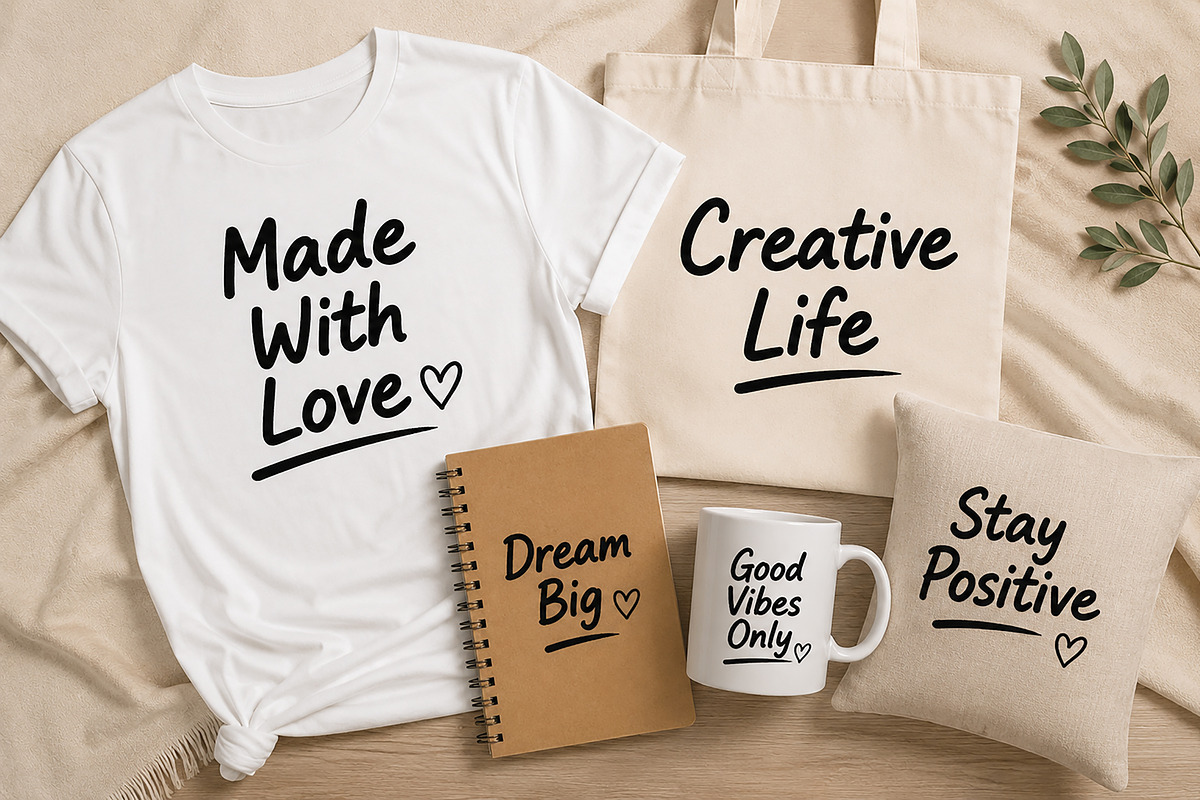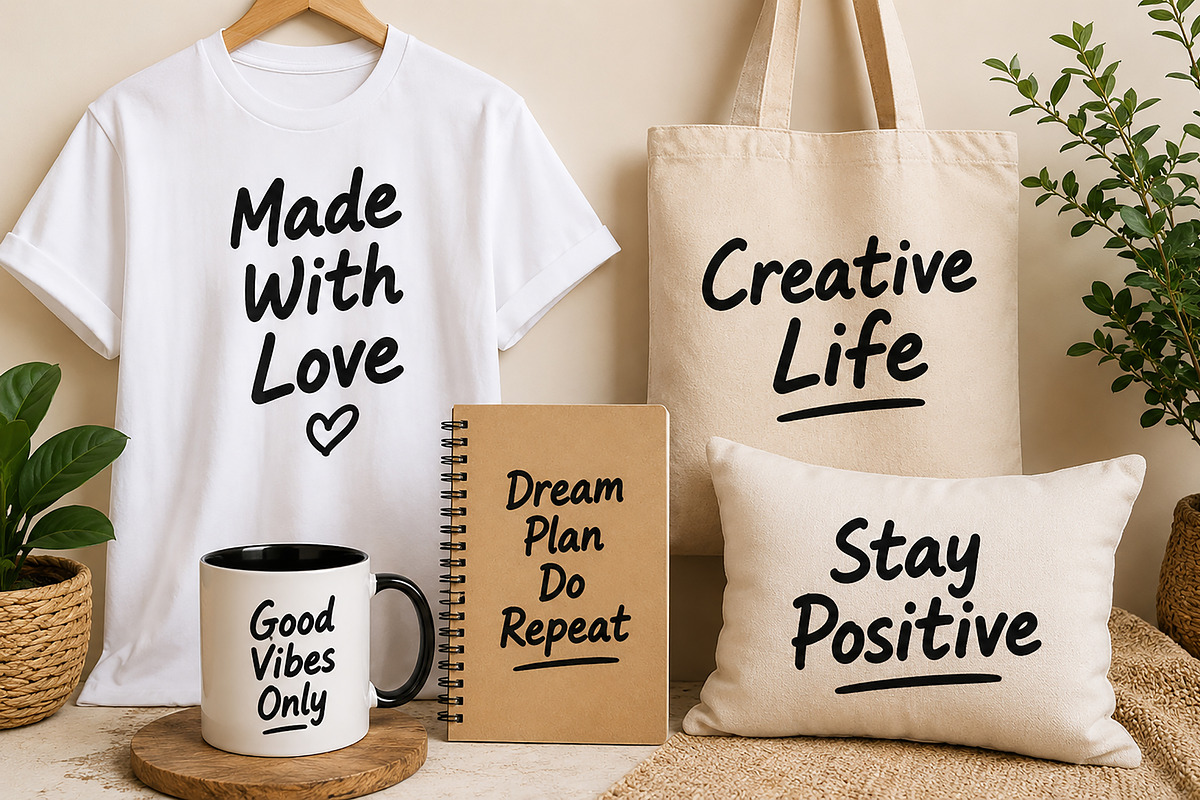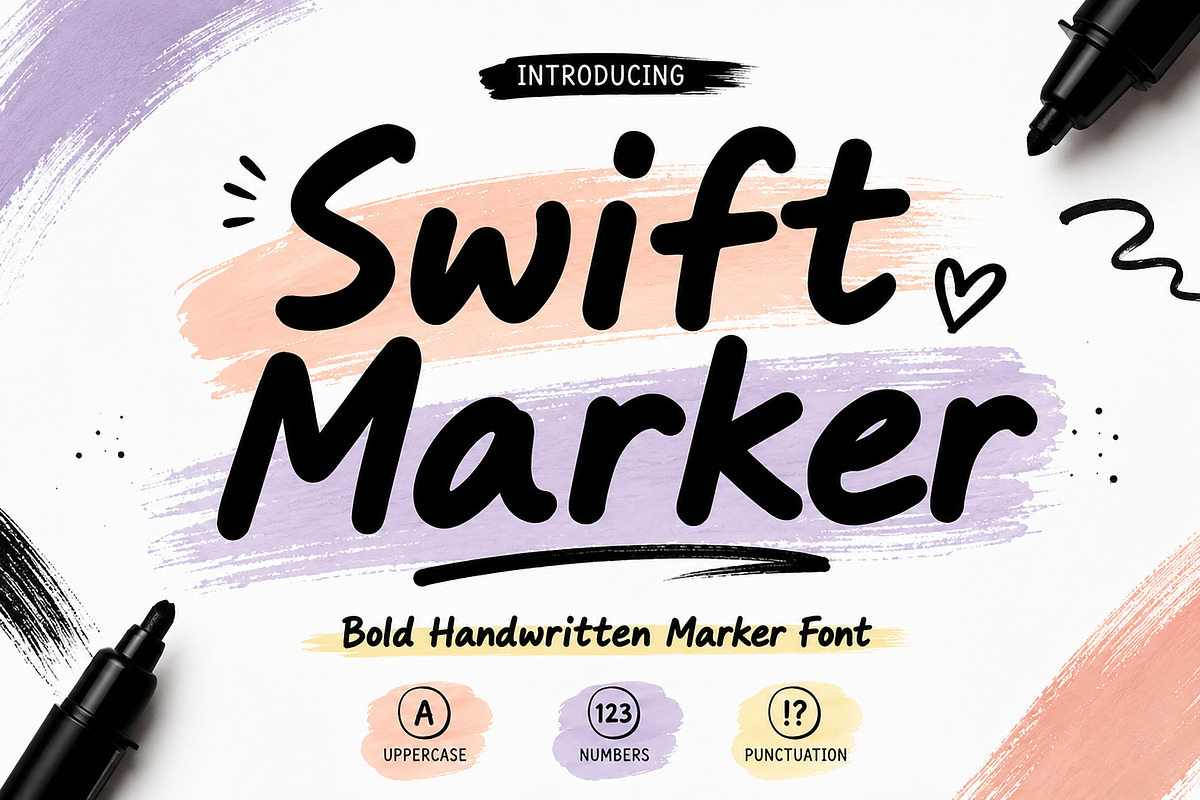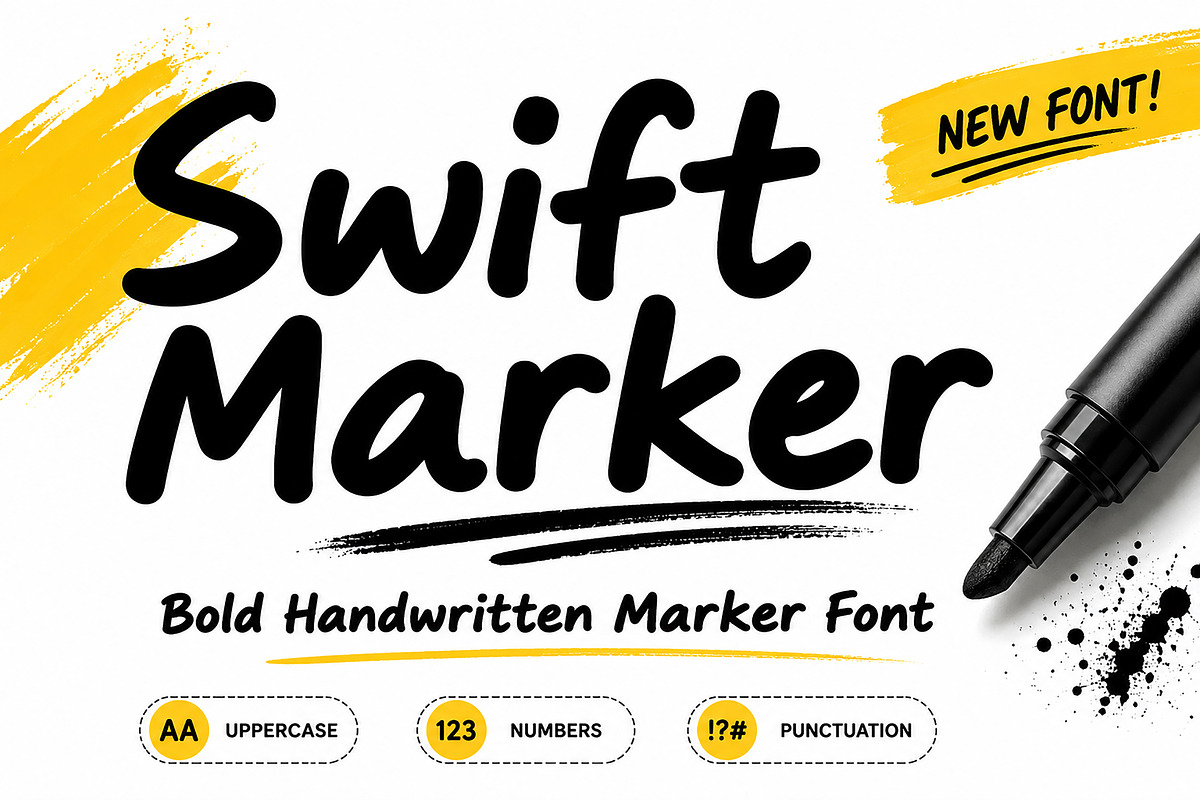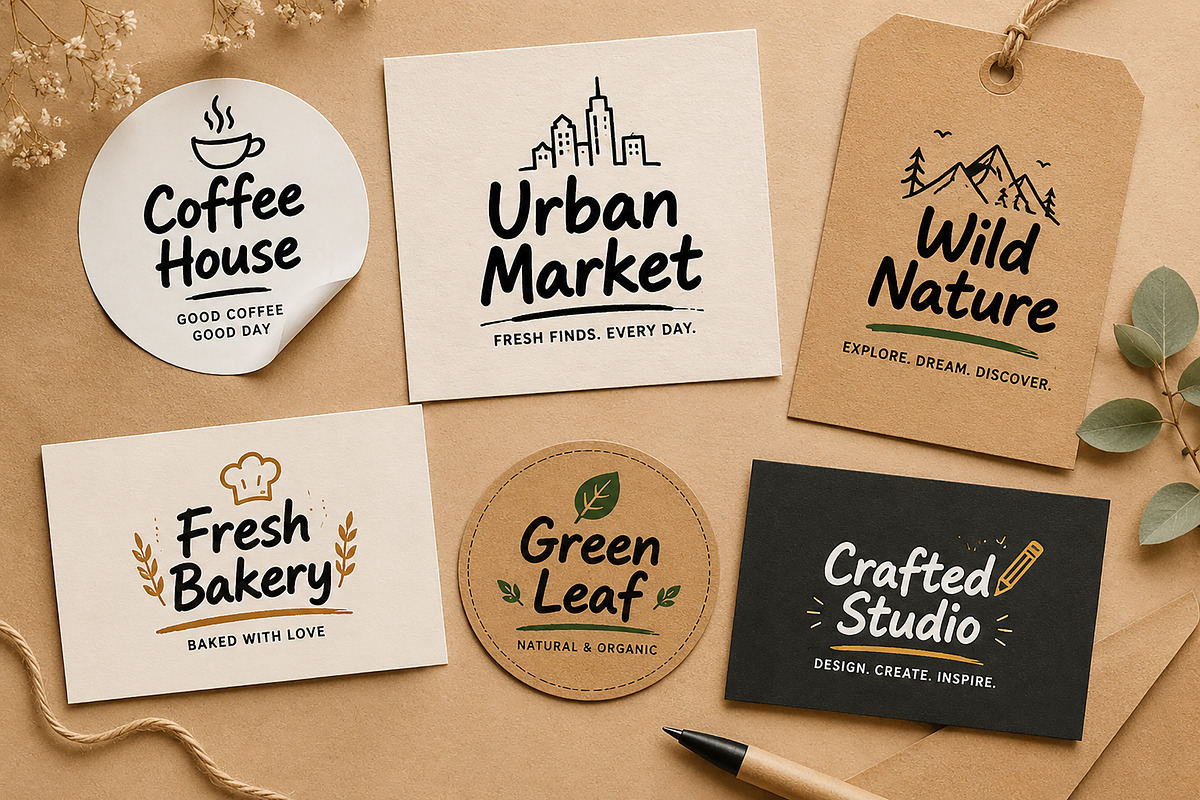
Swift Marker
Swift Marker – Bold Handwritten Marker Font
Swift Marker is a bold and energetic handwritten marker font designed to bring personality, creativity, and authenticity to your projects. With its smooth strokes, natural flow, and modern handwritten feel, this font is perfect for branding, logos, social media graphics, packaging, merchandise, posters, quotes, invitations, and more.
Whether you're creating eye-catching marketing materials or stylish handmade product branding, Swift Marker delivers a friendly and confident look that stands out effortlessly.
Branding Projects
T-Shirt Designs
Mug & Merchandise
Posters & Flyers
Quotes & Typography Art
YouTube Thumbnails
Etsy & Creative Business Branding
Stickers & Labels
Handmade Product Packaging
Uppercase & Lowercase Letters
Smooth Handwritten Style
Bold Marker Appearance
Easy to Read
Add a natural handwritten touch to your next creative project with Swift Marker and make your designs feel more personal, bold, and memorable.